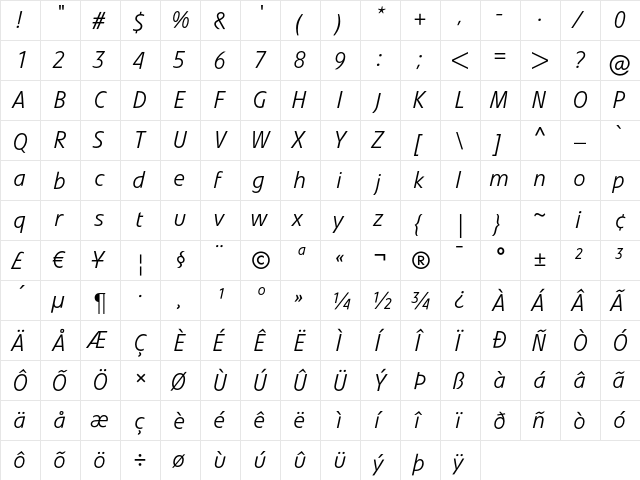
LinotypeVeto LightItalic
Design Context for LinotypeVeto Typeface
LinotypeVeto offers clean, dependable letterforms without strong stylistic allegiance, making it a practical choice for designers who need flexibility. The dynamic lean of this cut emphasises speed and emphasis in any layout. Its slender proportions lend an understated elegance to any composition.
Pro Tip: Use LinotypeVeto for emphasis, pull quotes, and subheadings where its slanted energy can add rhythm to the layout.